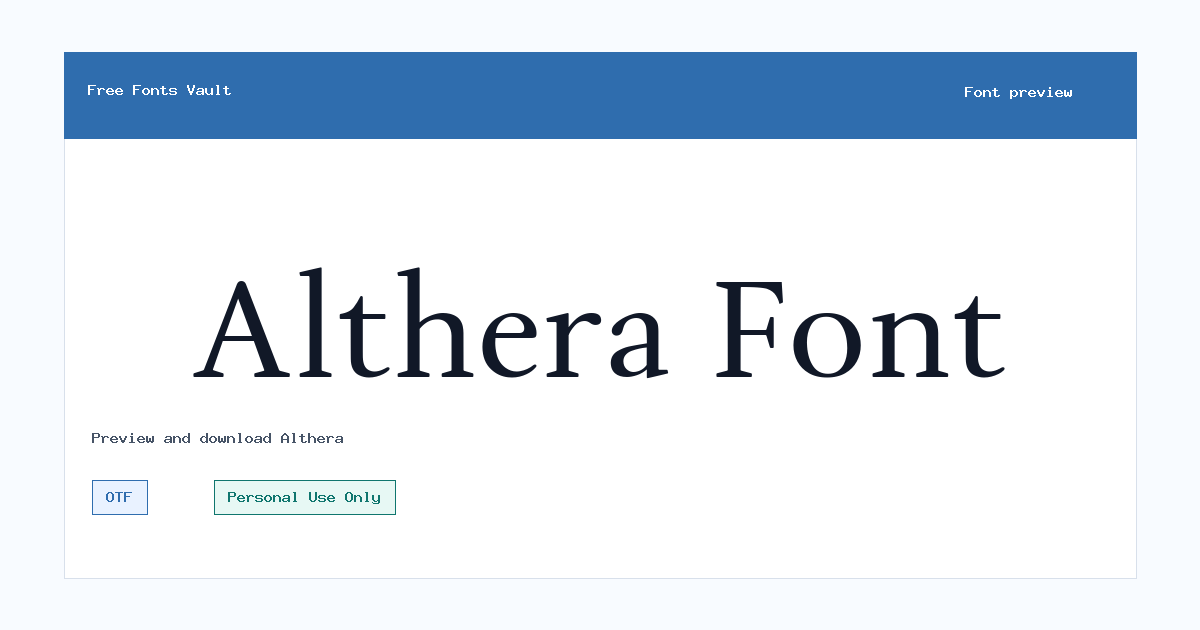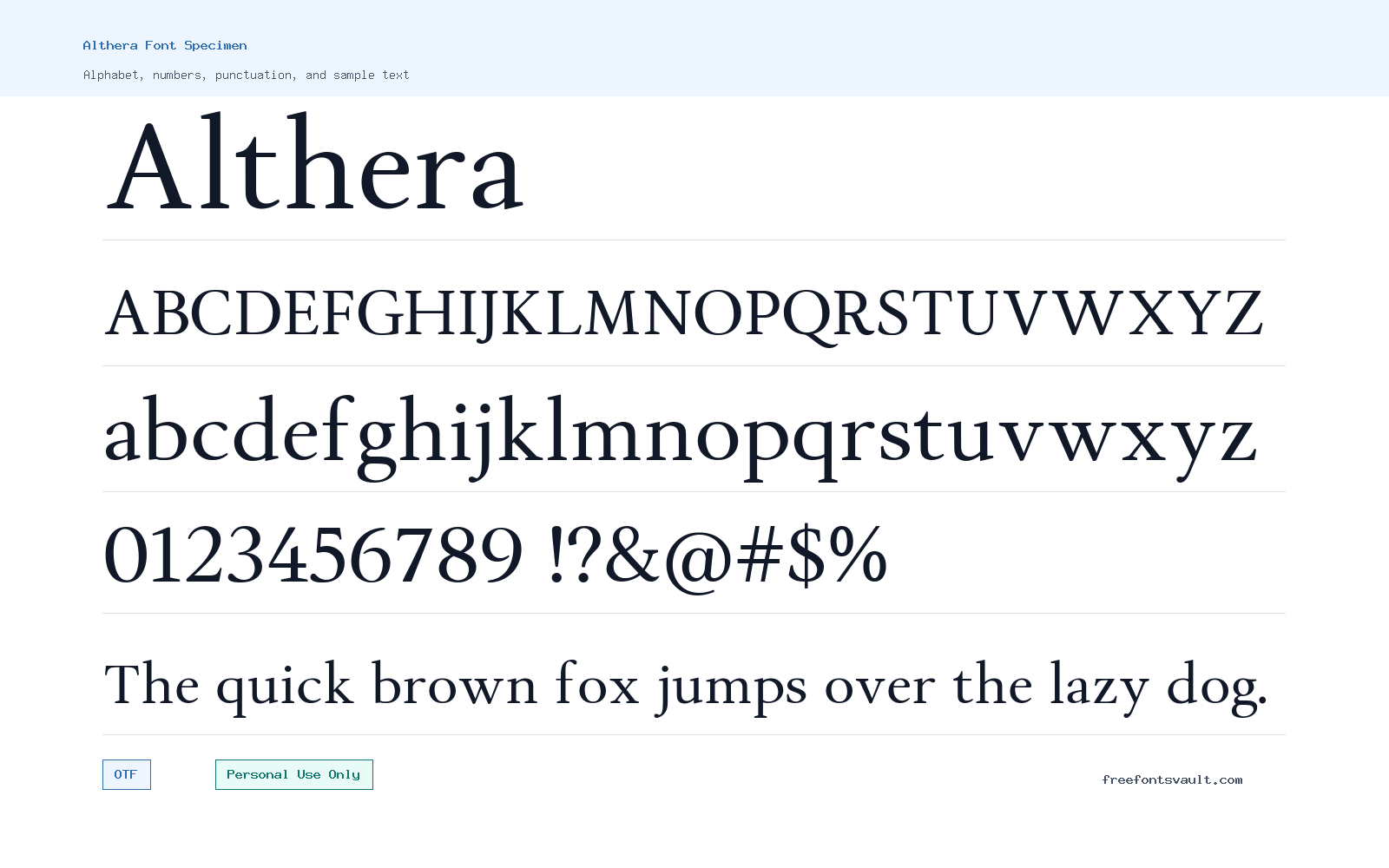
Althera
Althera font.
Althera is a serif display font with a regular OTF file for personal projects. Its style works best when you need a refined title or short piece of decorative text rather than long reading copy.
About Althera
Althera has the structure of a serif typeface, so it suits designs that need a more polished or editorial tone. Use the preview tool to test your own words before downloading, especially if your design depends on a specific name, headline, or phrase. Display fonts can change character when letters sit next to each other, so checking real text is more helpful than judging the alphabet alone.
This font is a practical choice for short text settings such as invitations, social graphics, quote cards, packaging mockups, blog headers, personal logo drafts, and decorative title layouts. Keep the text brief and give it enough spacing so the serif details stay clear. For body paragraphs, menus, captions, or small mobile text, pair Althera with a simpler sans serif or readable text serif instead of using it for everything.
- Serif design suited to short display text
- Invitations, quote graphics, and personal event designs
- Headlines, blog headers, packaging mockups, and logo drafts
Try Althera at the actual size you plan to use. It is better for names, titles, and short phrases than dense paragraphs. If your layout needs supporting text, combine it with a clean companion font and let Althera handle the main display line. Before using Althera in a finished personal design, test it on both light and dark backgrounds and compare a few sizes. If the serif details start to blur, raise the size, add a little letter spacing, or use it only for the main word while a cleaner companion font handles the smaller text.
What is Althera best used for?
Althera is best for short display text such as titles, invitations, quote cards, personal logo drafts, packaging mockups, and social media graphics.
Can I use Althera for paragraphs?
It is not the best choice for long paragraphs. Use it for a headline or accent, then choose a more readable text font for longer copy.